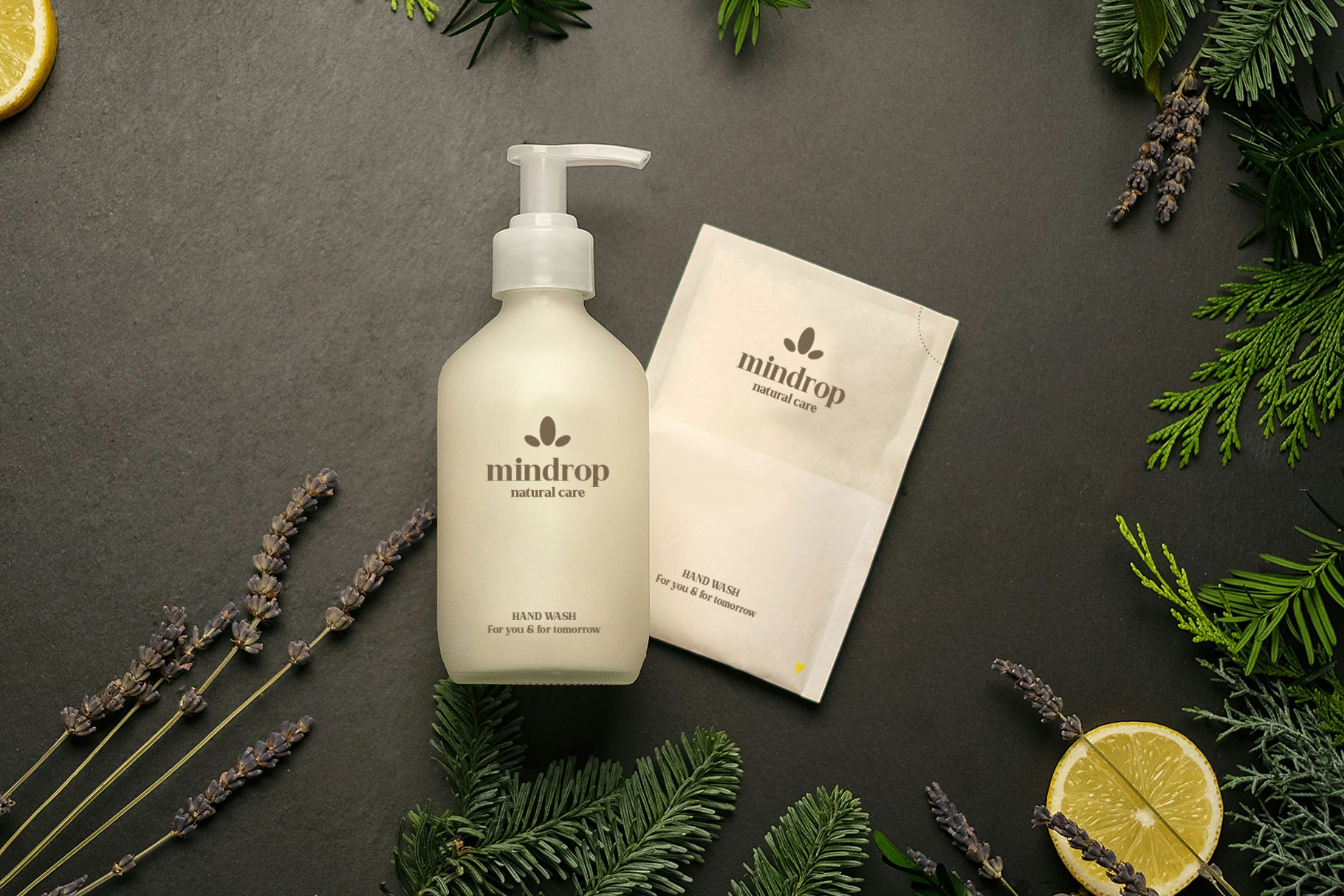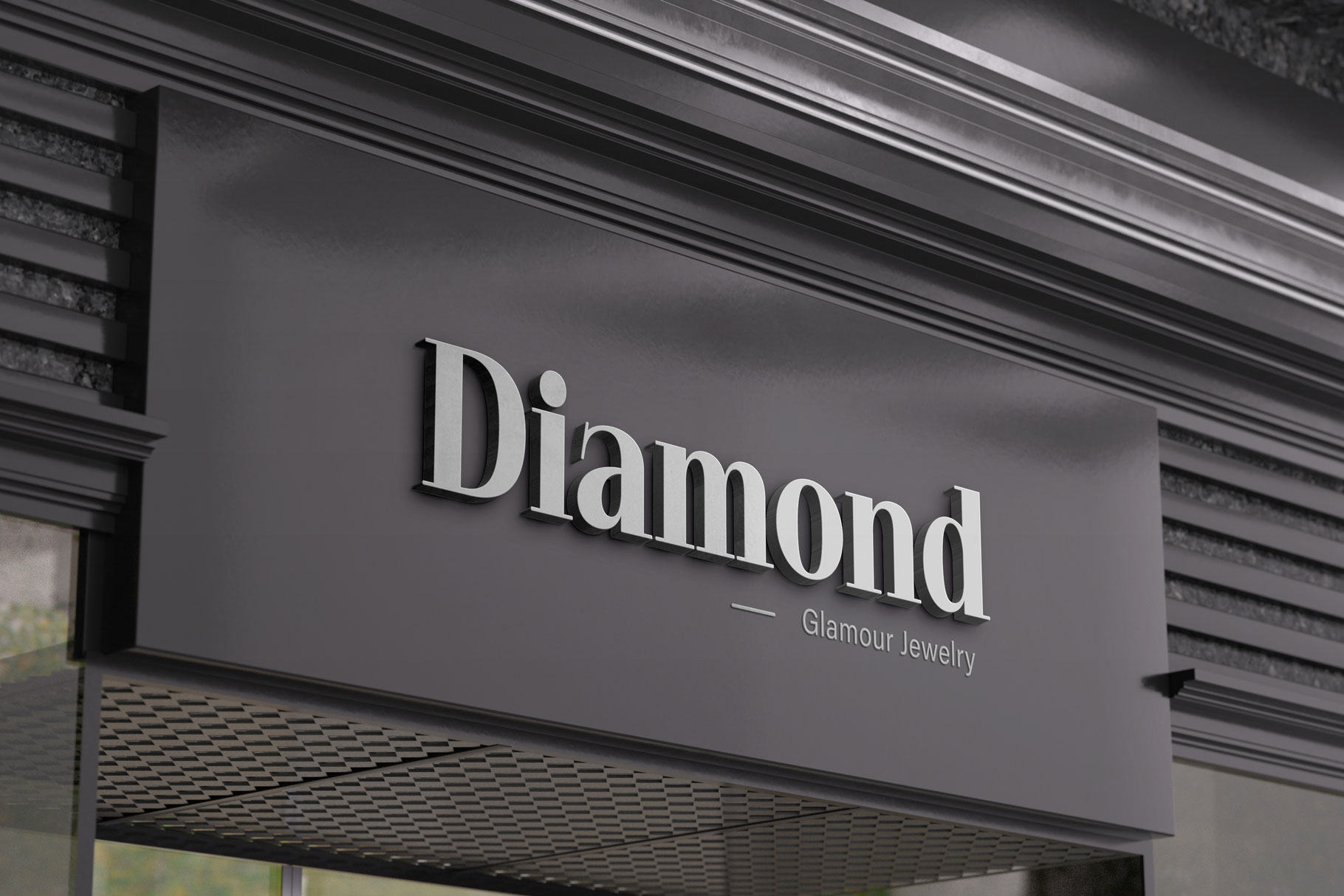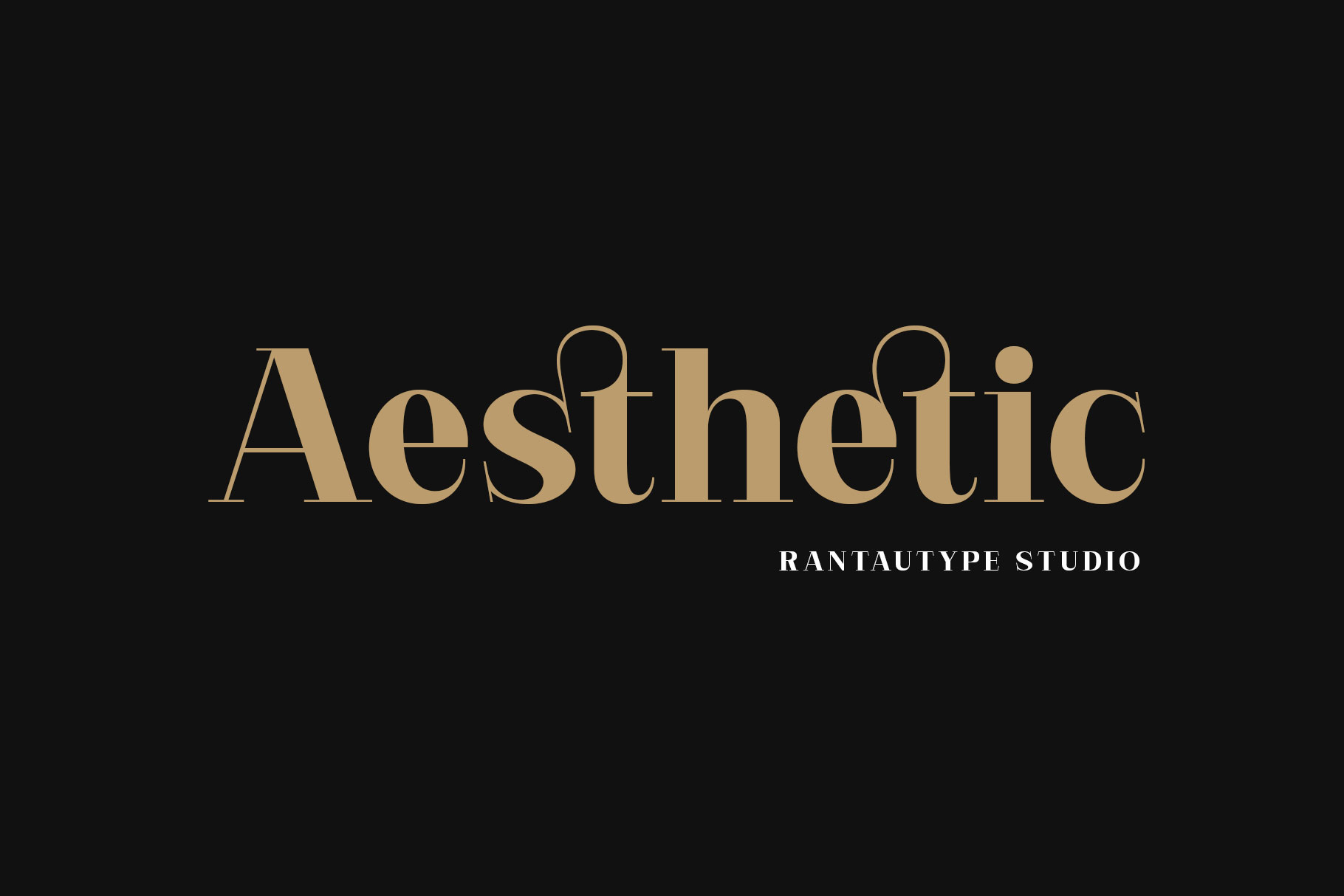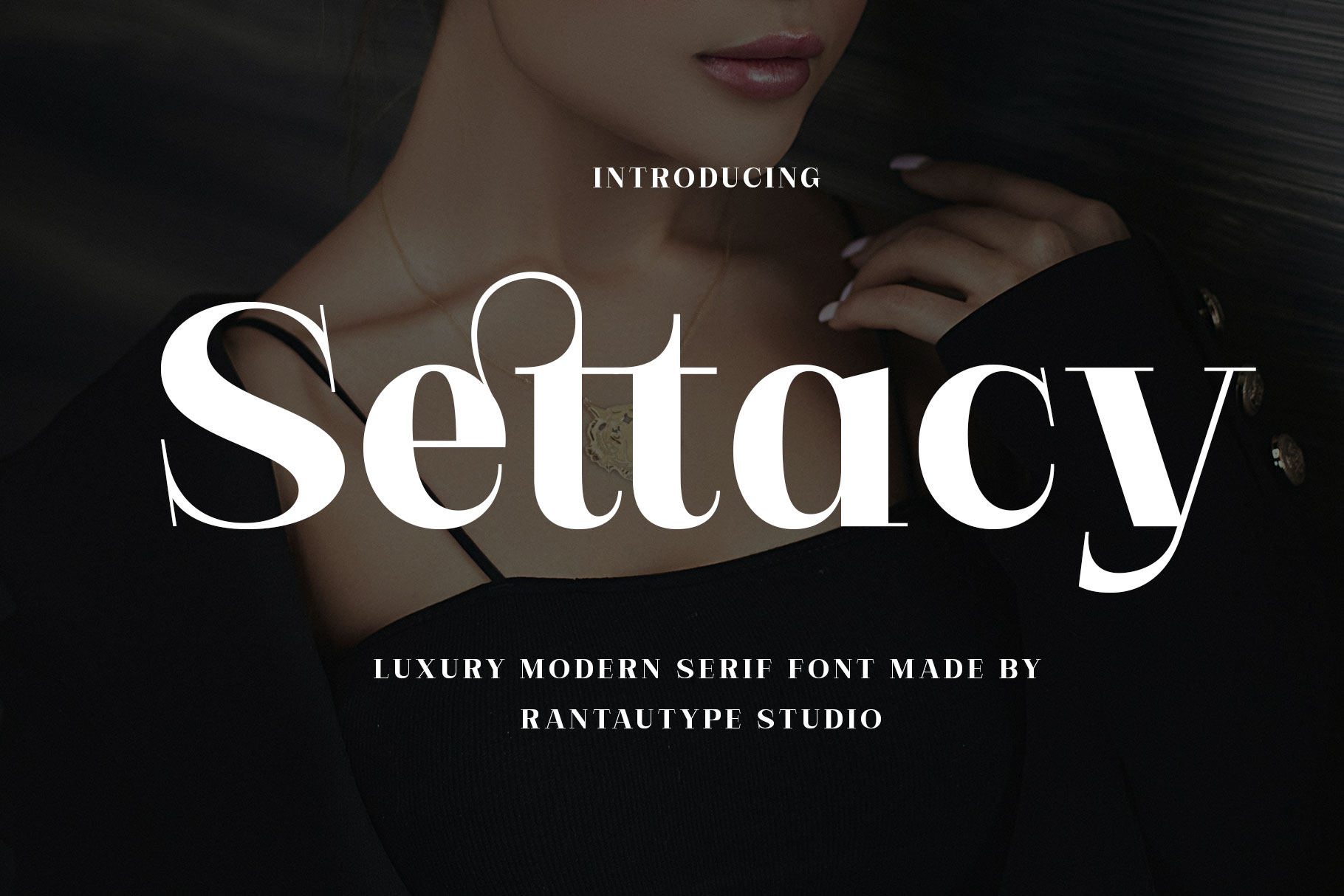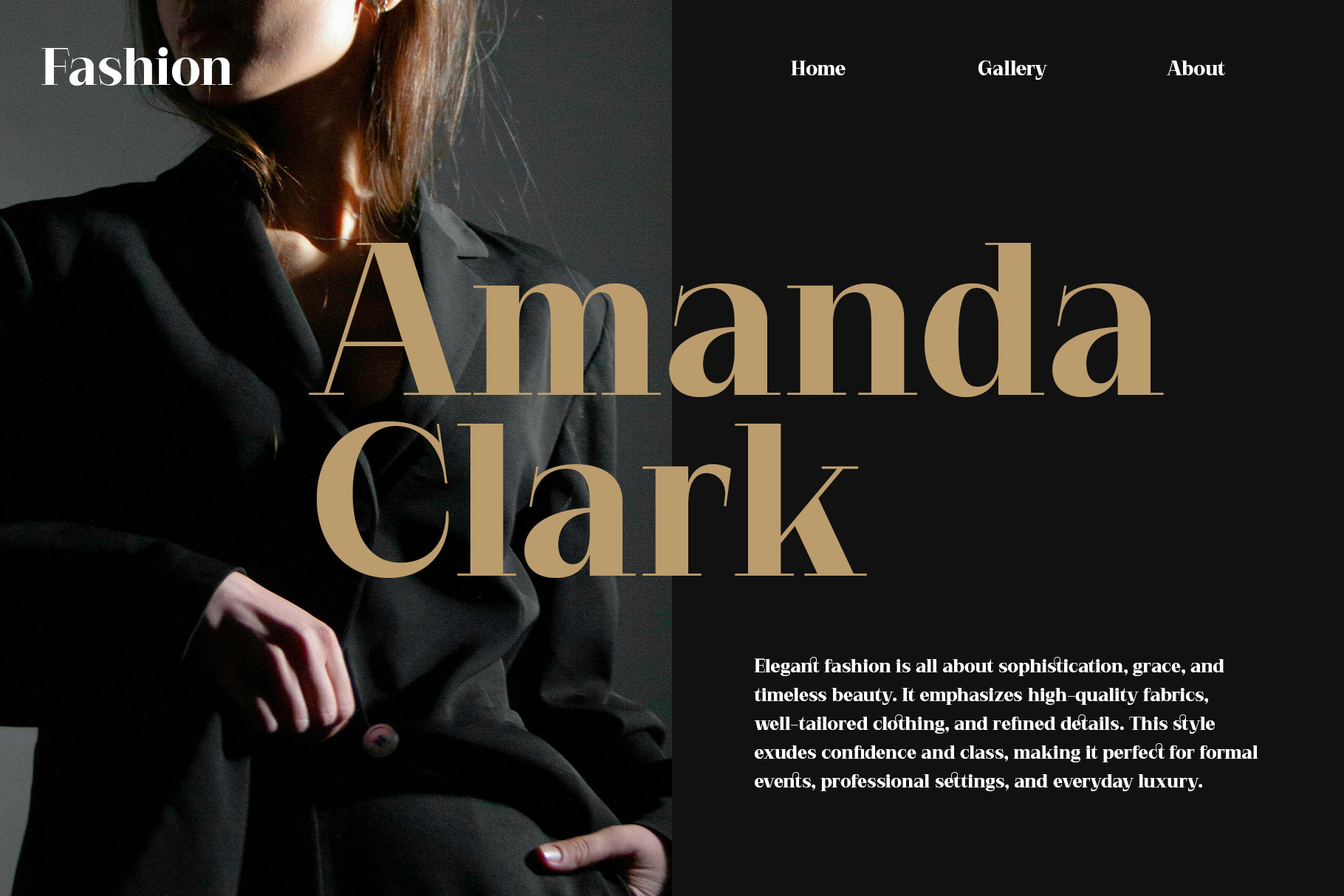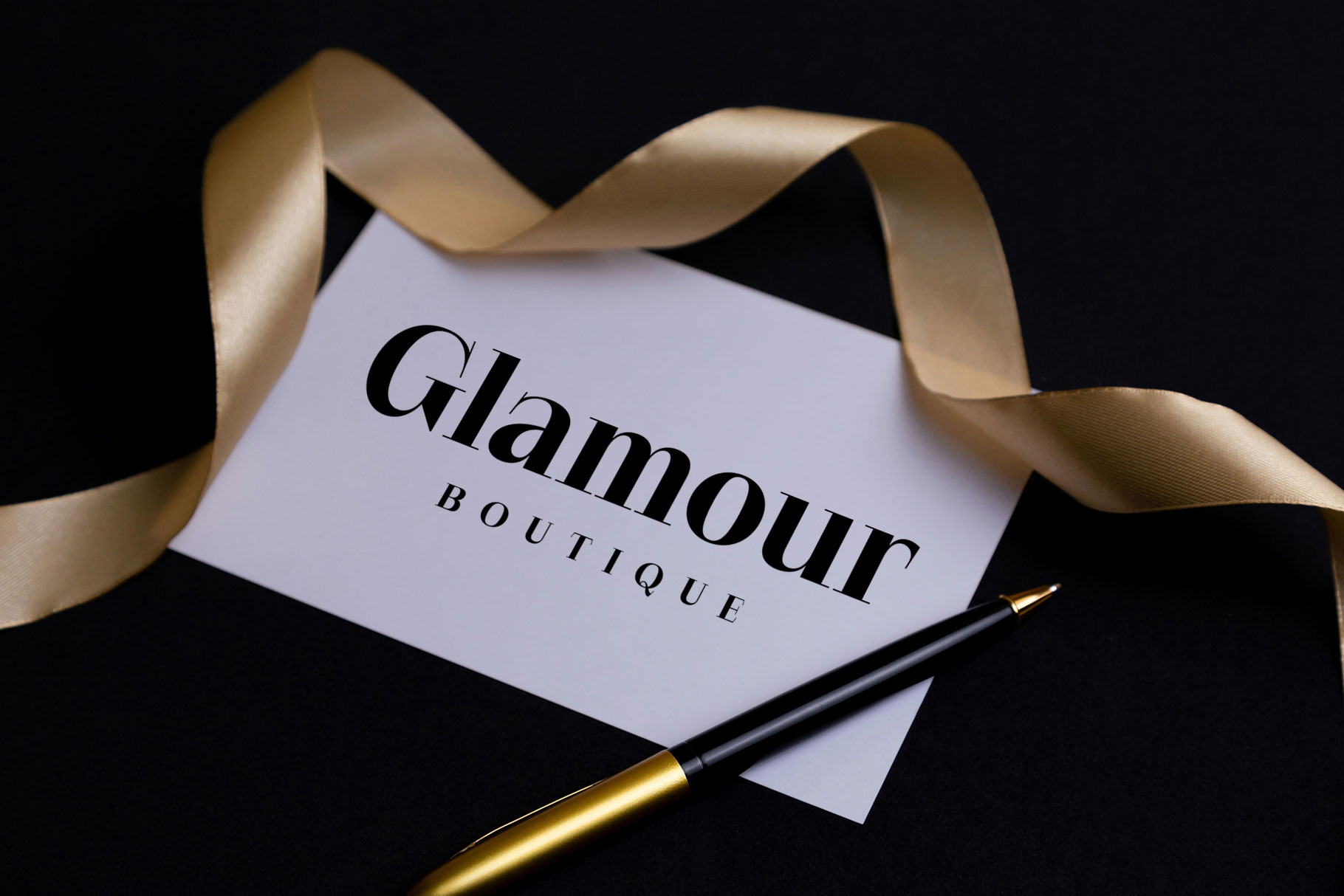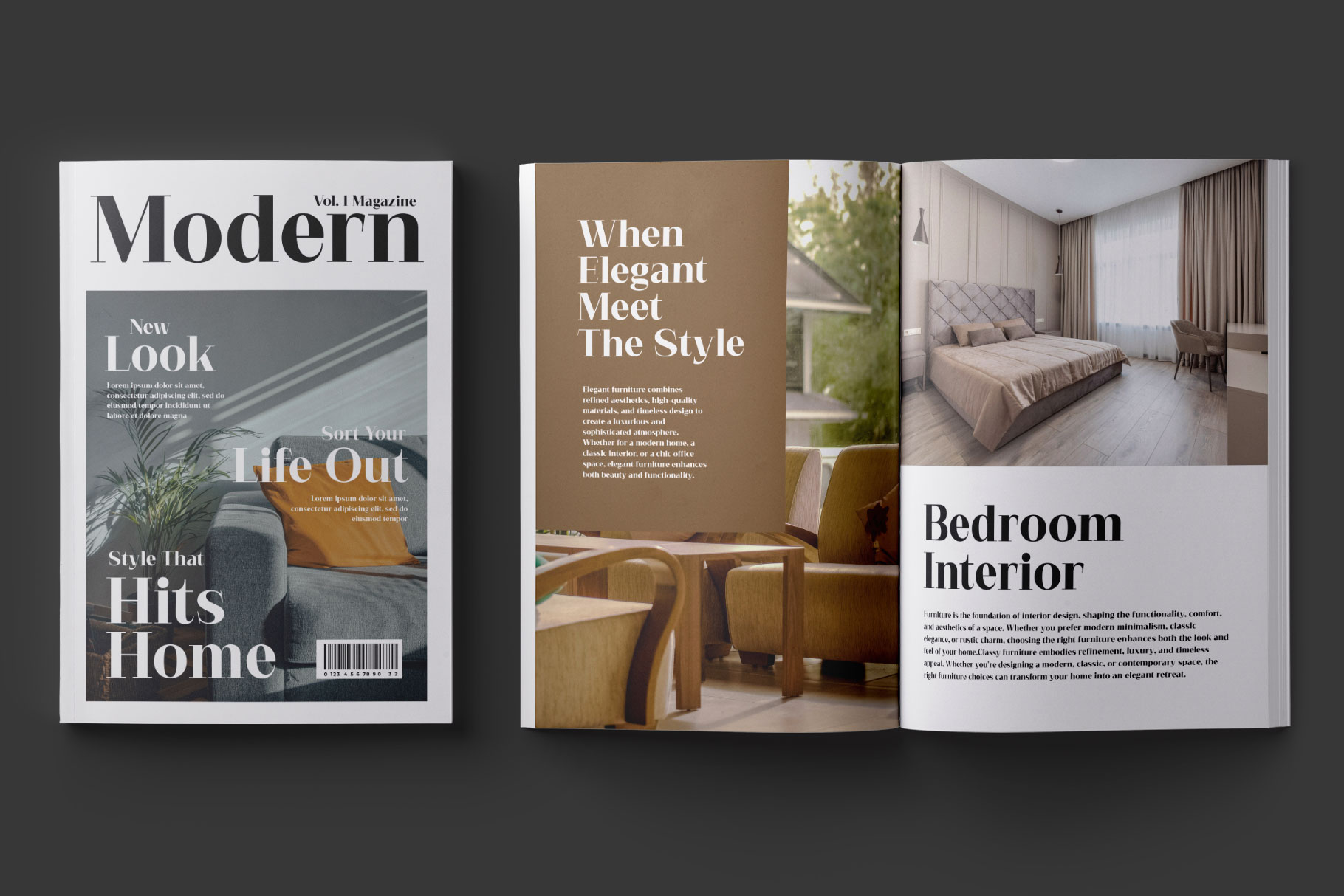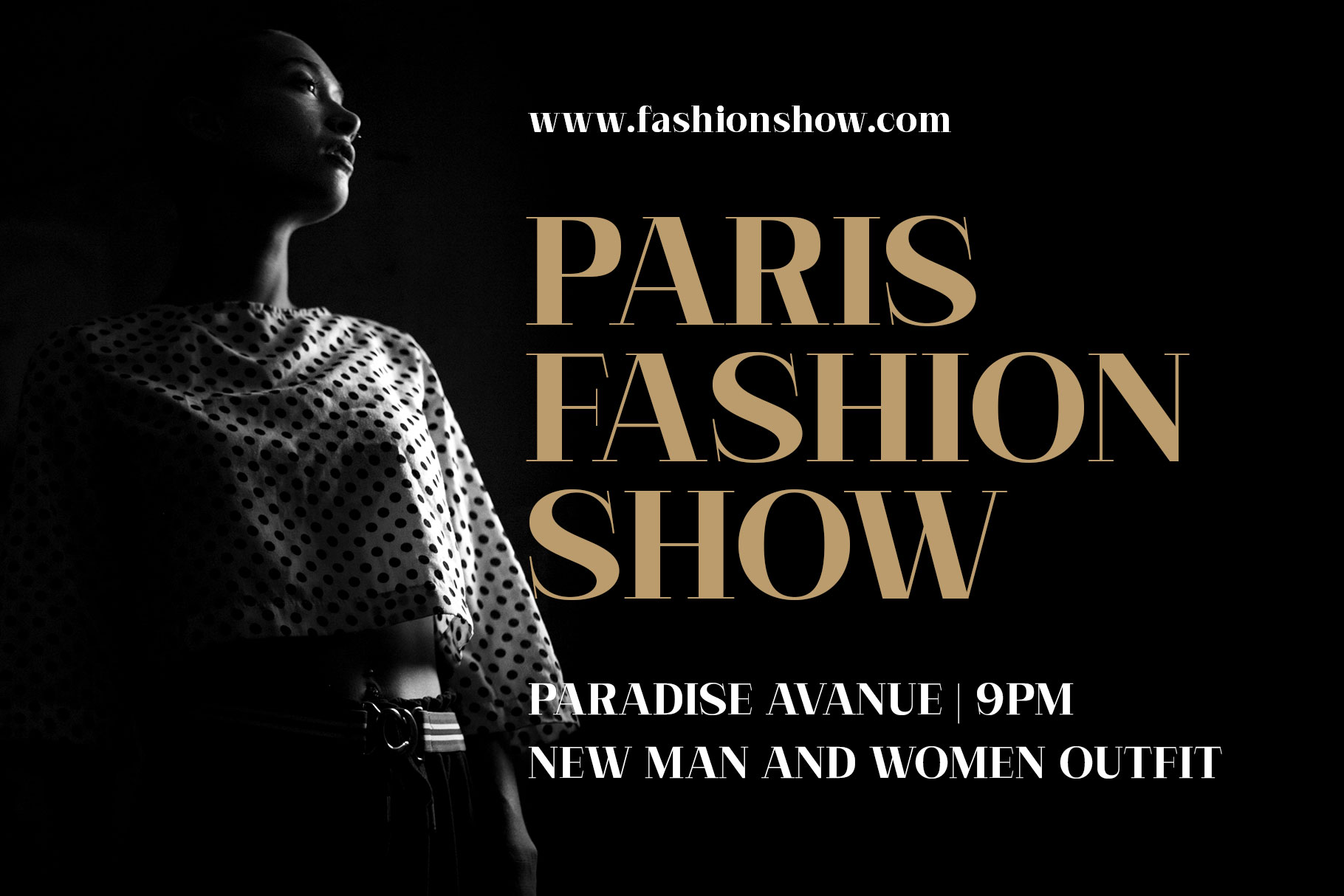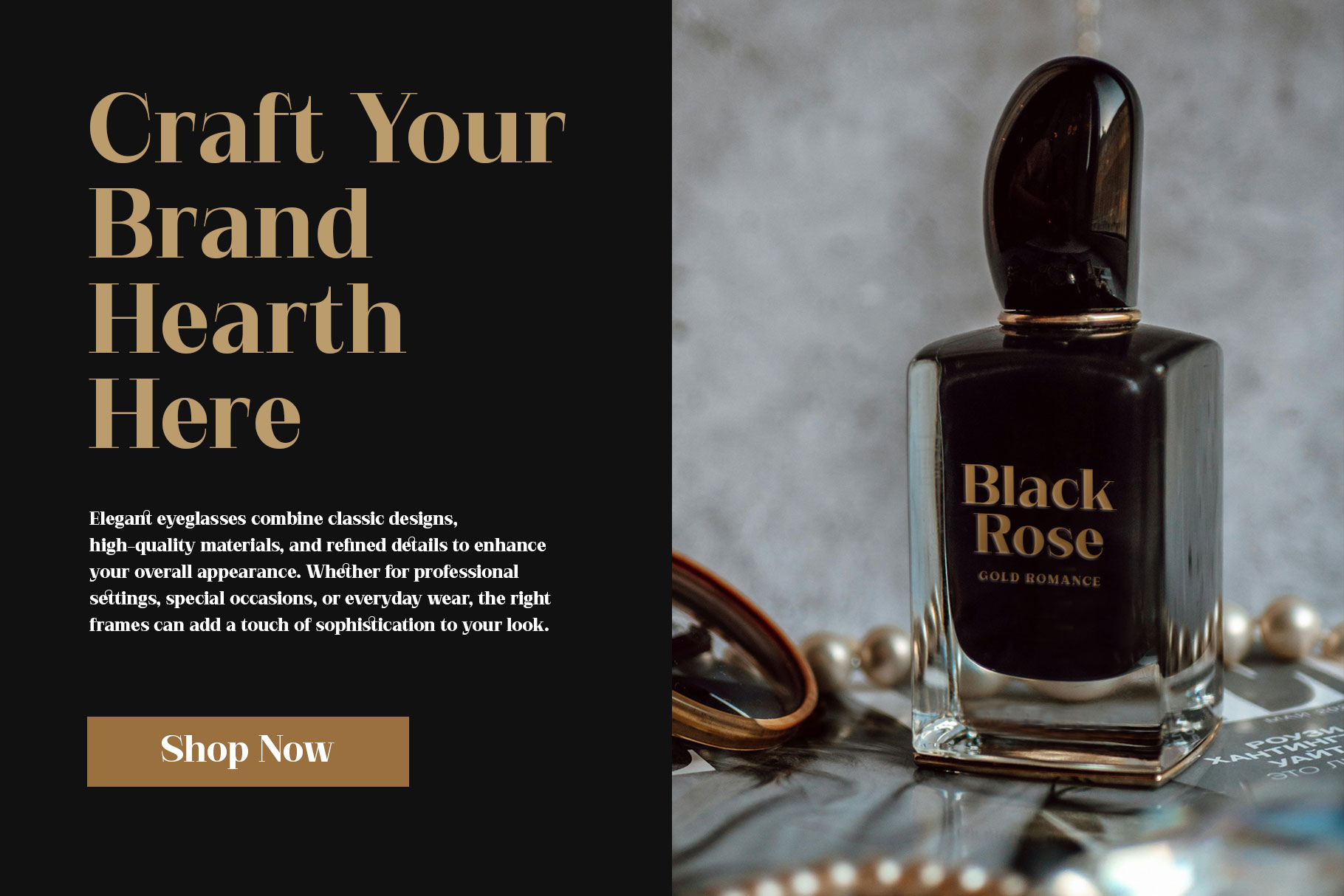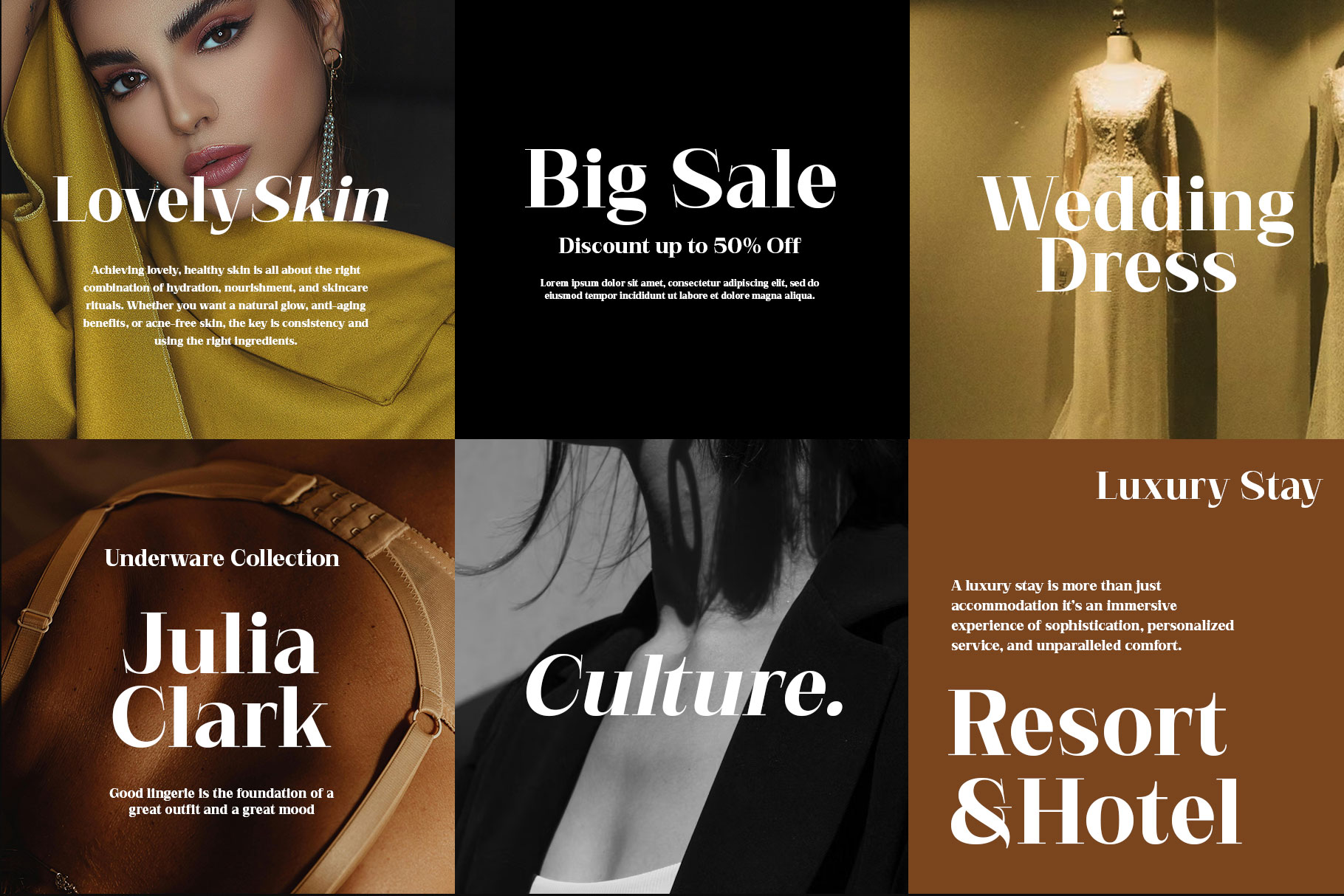
Settacy Luxury Modern Serif Font
Settacy is luxury typeface and high-end designs to convey elegance, sophistication, and timeless beauty. Settacy is a perfectly choice for any creative endeavor, chic, lifestyle design such as logotype, advertisements, watermark on photography, stationery, branding project, display and magazine, invitation, corporate brand, product design, label, business project and many other project with luxury touch.